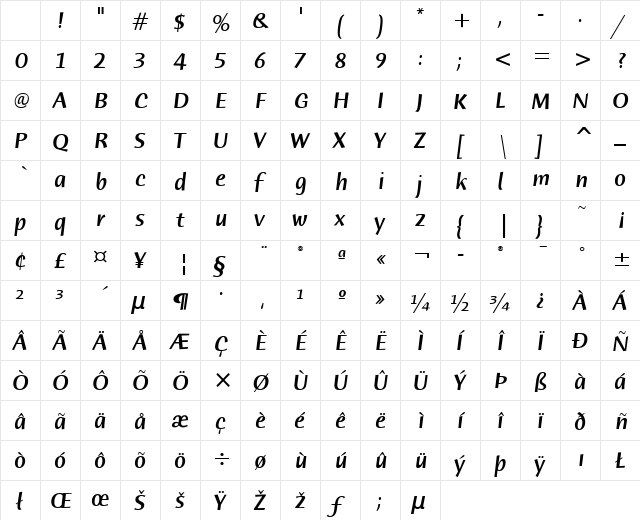
Complete Humana Sans ITC Medium Italic glyph index. Displaying only characters natively supported by Humana Sans ITC Medium Italic font.
Humana Sans ITC is a composed and adaptable typeface that performs quietly and consistently across a wide range of design contexts. The slanted form adds forward momentum and visual energy.
Who designed the Humana Sans ITC Medium Italic font?
This font was published by as an unpublished work by Galapagos Design Group, Inc. Check the technical specs section for copyright and designer details.